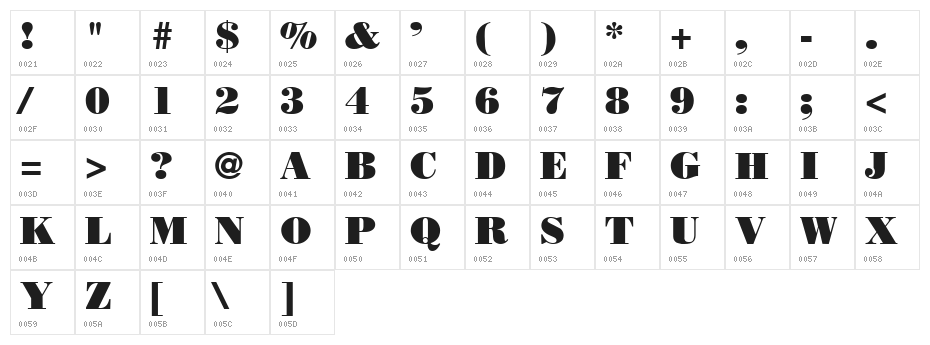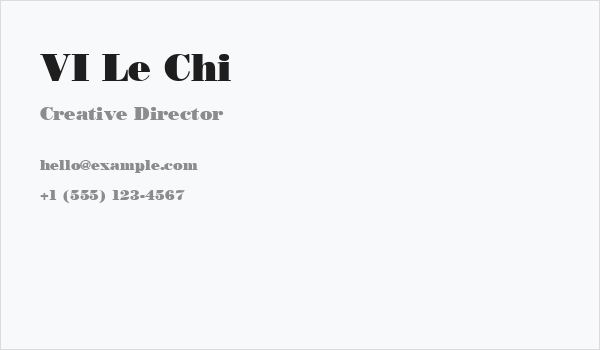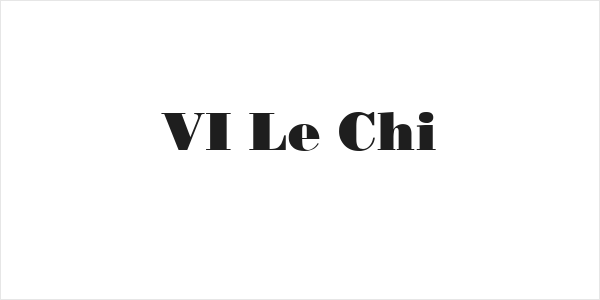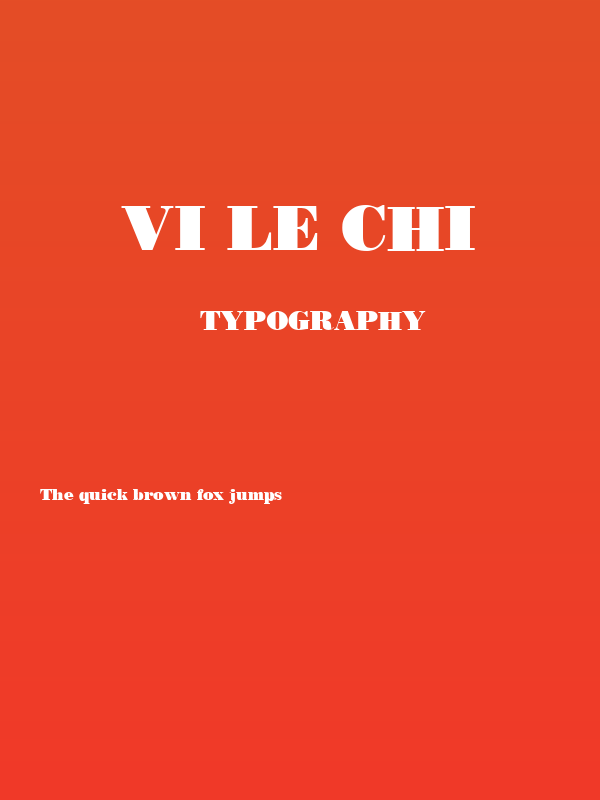
VI Le Chi Font
VI Le Chi Description
This font exhibits a bold and striking presence with its thick, strong strokes and high contrast between thick and thin lines. The serifs are prominent and sharply defined, giving the font a classic yet powerful appearance. The uppercase letters are particularly commanding, with a sense of authority and elegance. The lowercase letters maintain a consistent style, ensuring readability while retaining the font's bold character. Numbers are equally robust, making them suitable for impactful displays. Special characters are designed with the same attention to detail, ensuring they integrate seamlessly with the rest of the font.
Overall StyleClassic
Proposed ProjectsIdeal for headlines, posters, branding, and any project requiring a strong, classic presence.